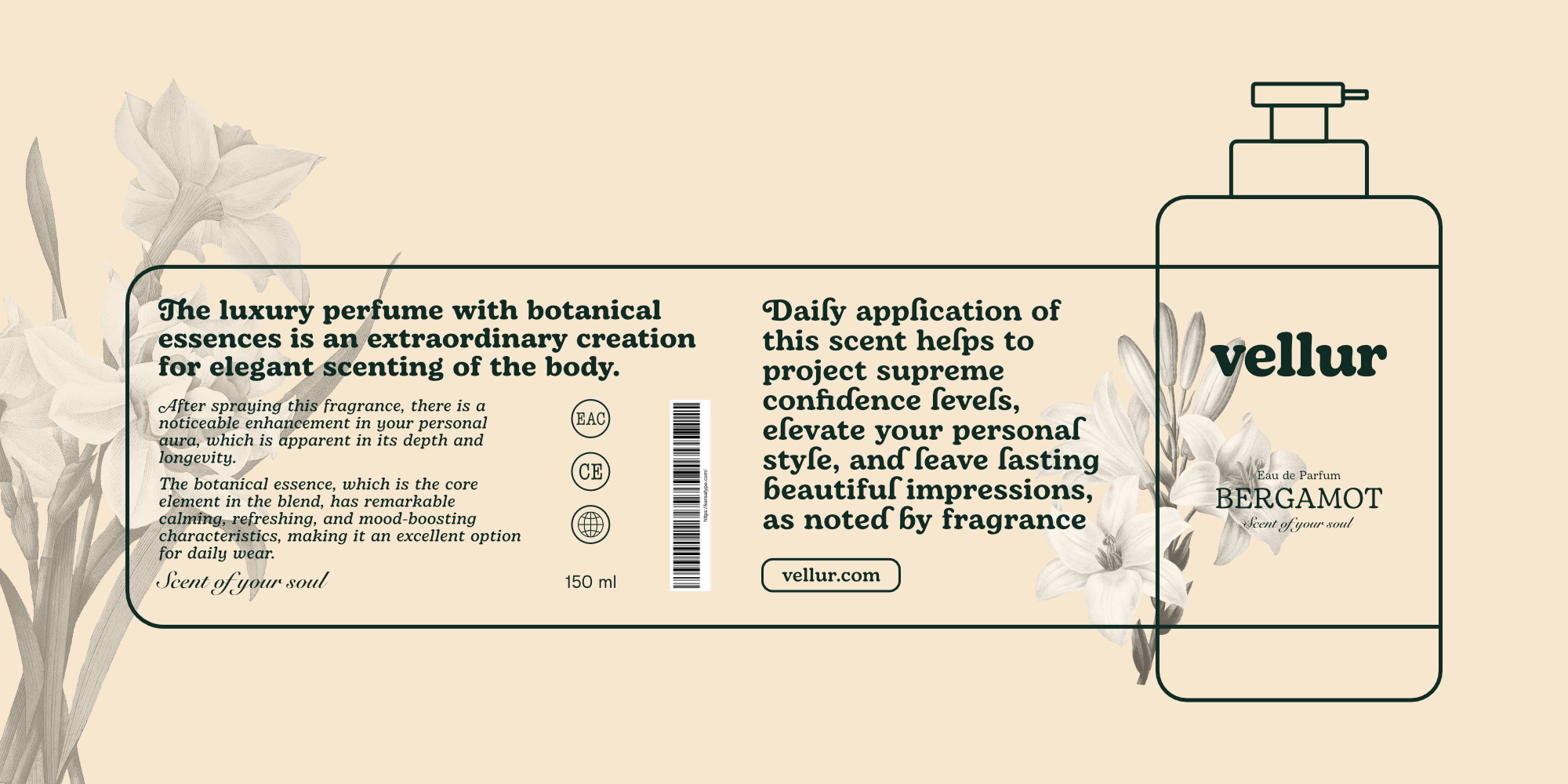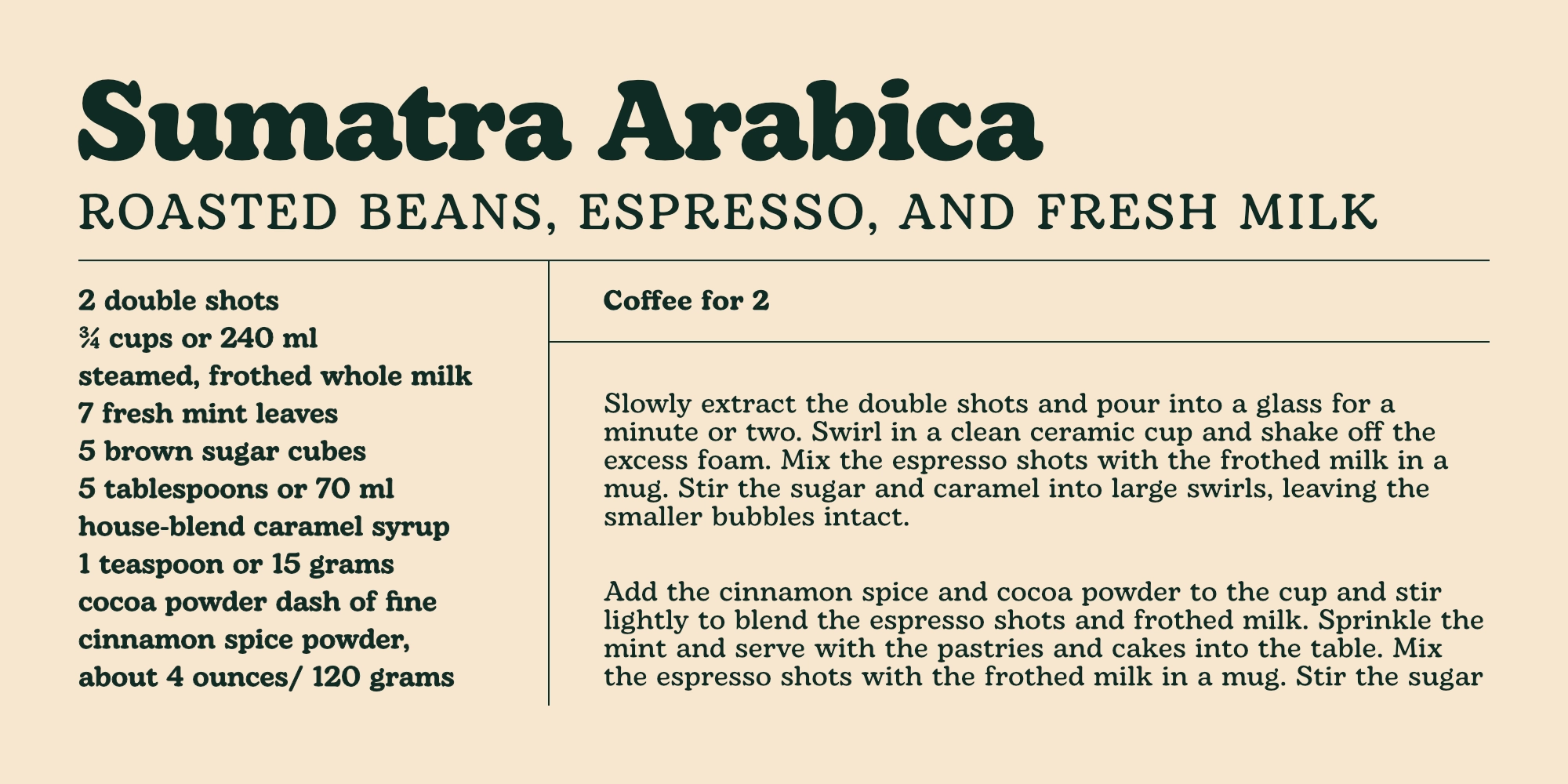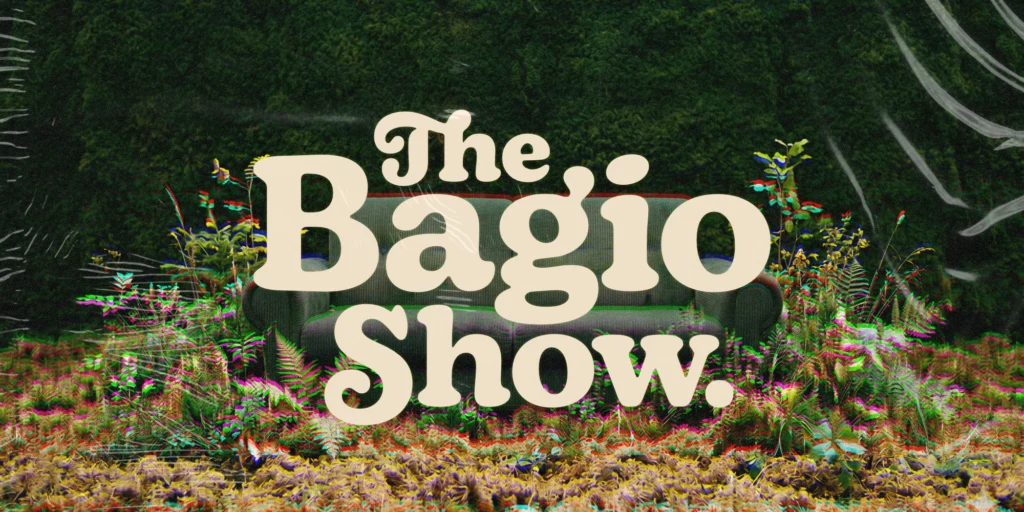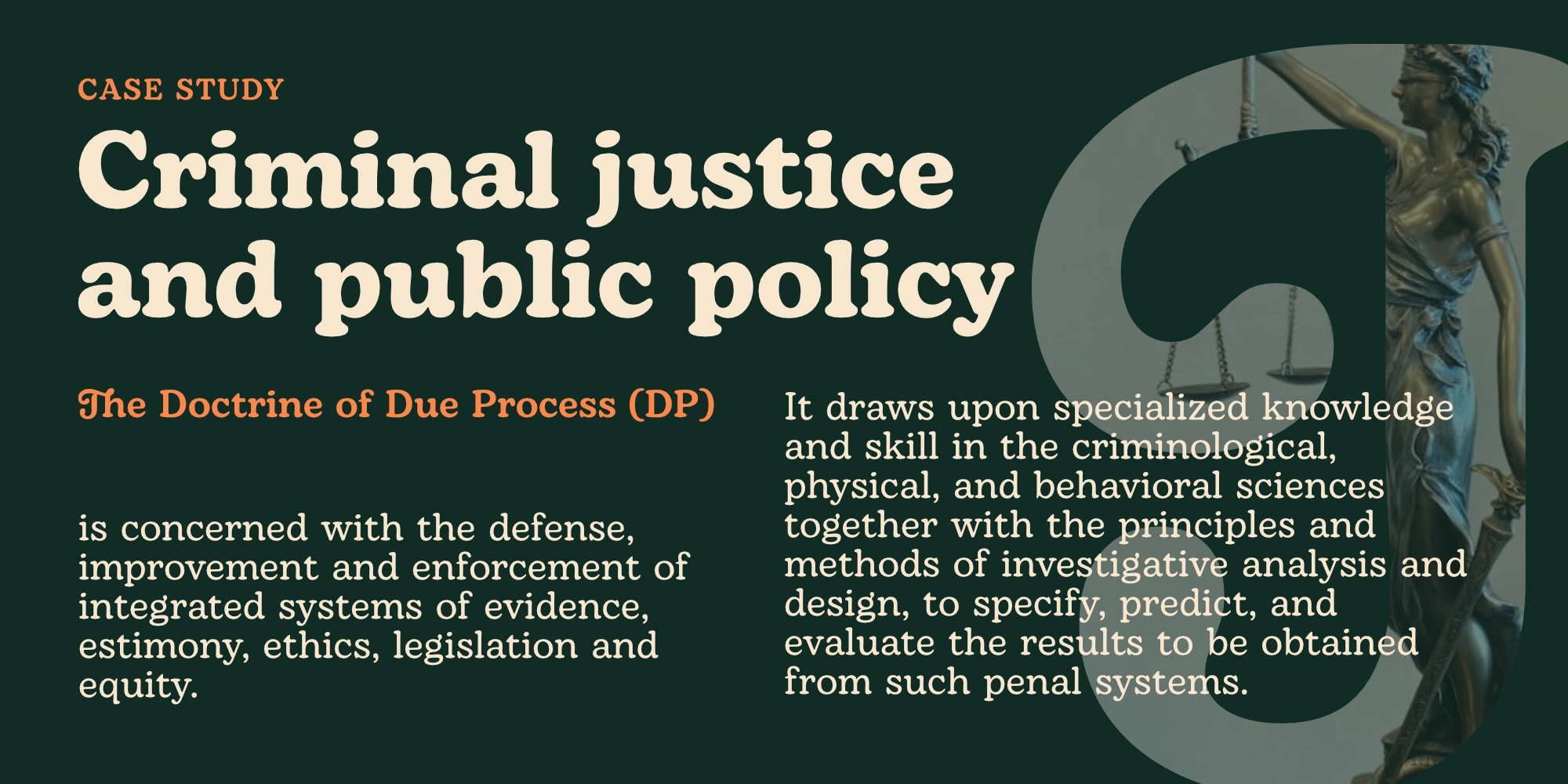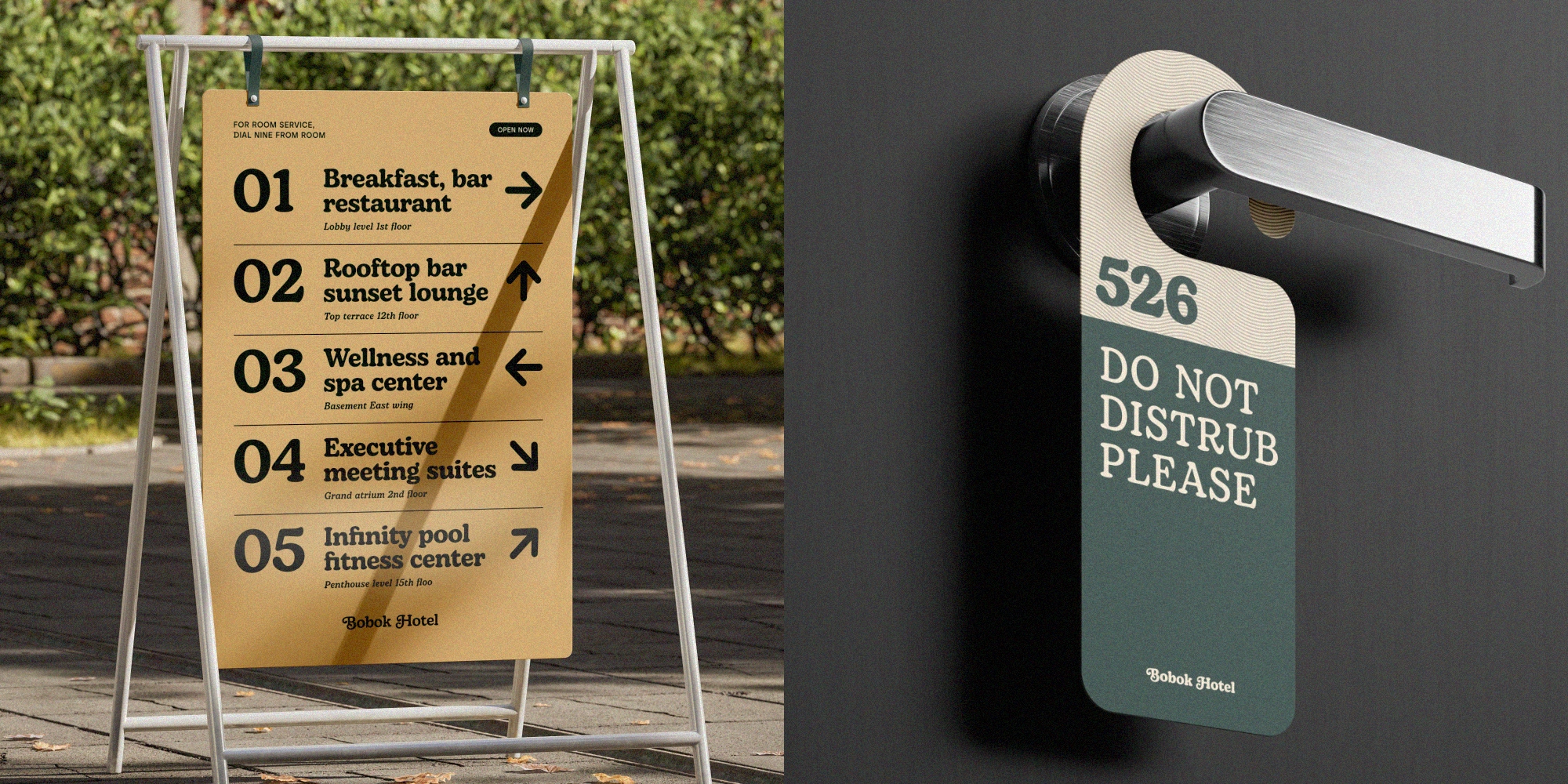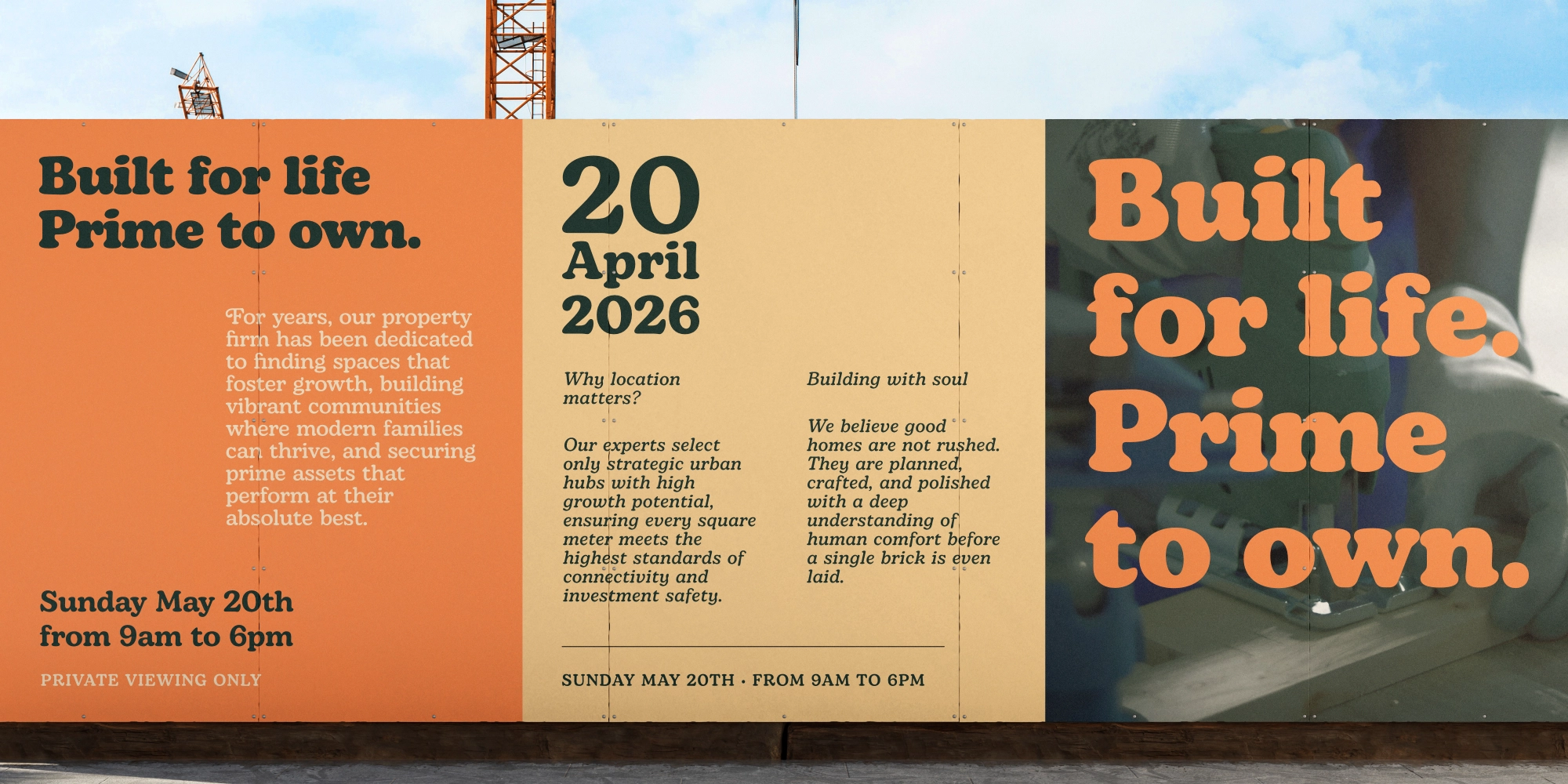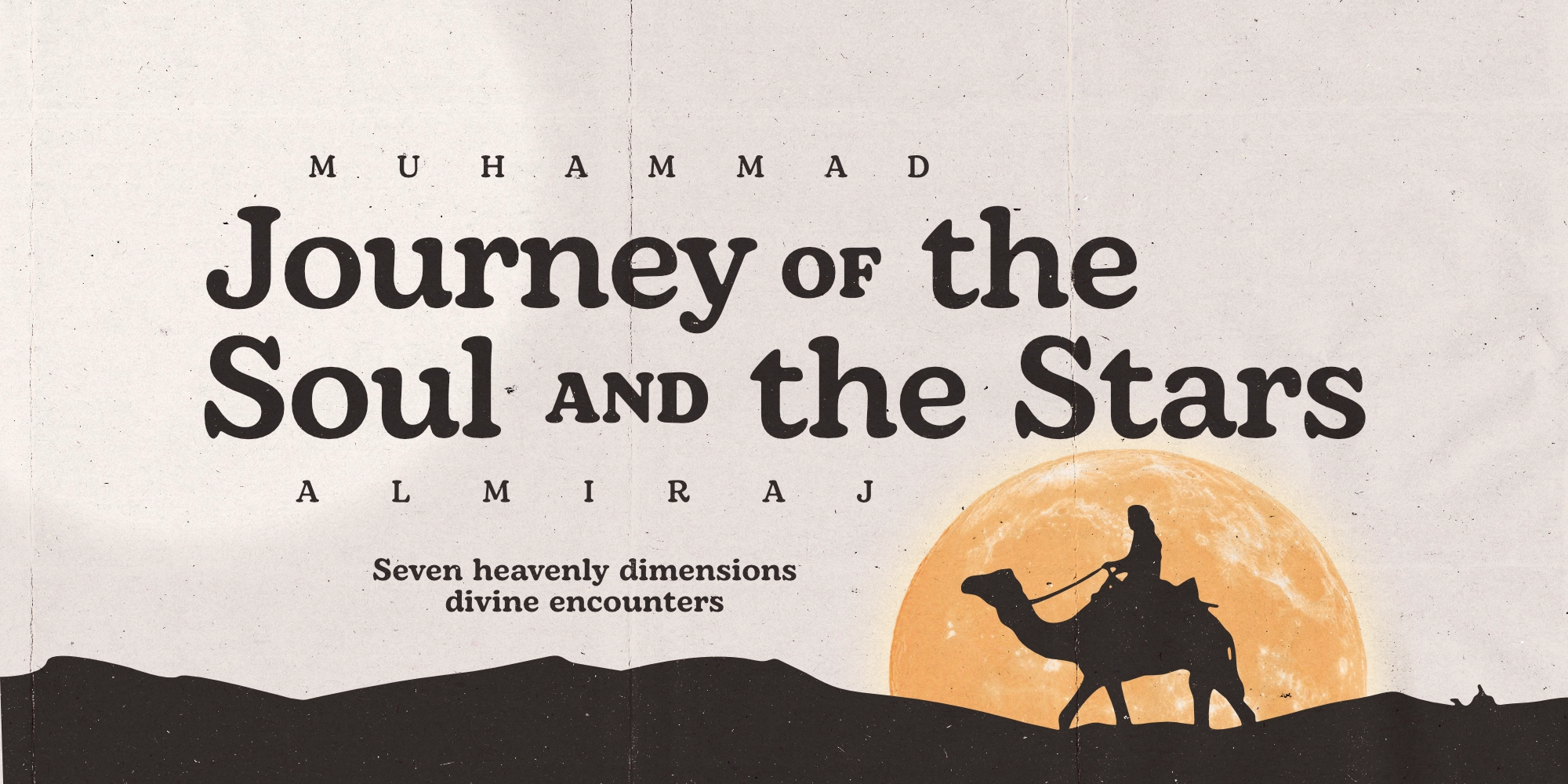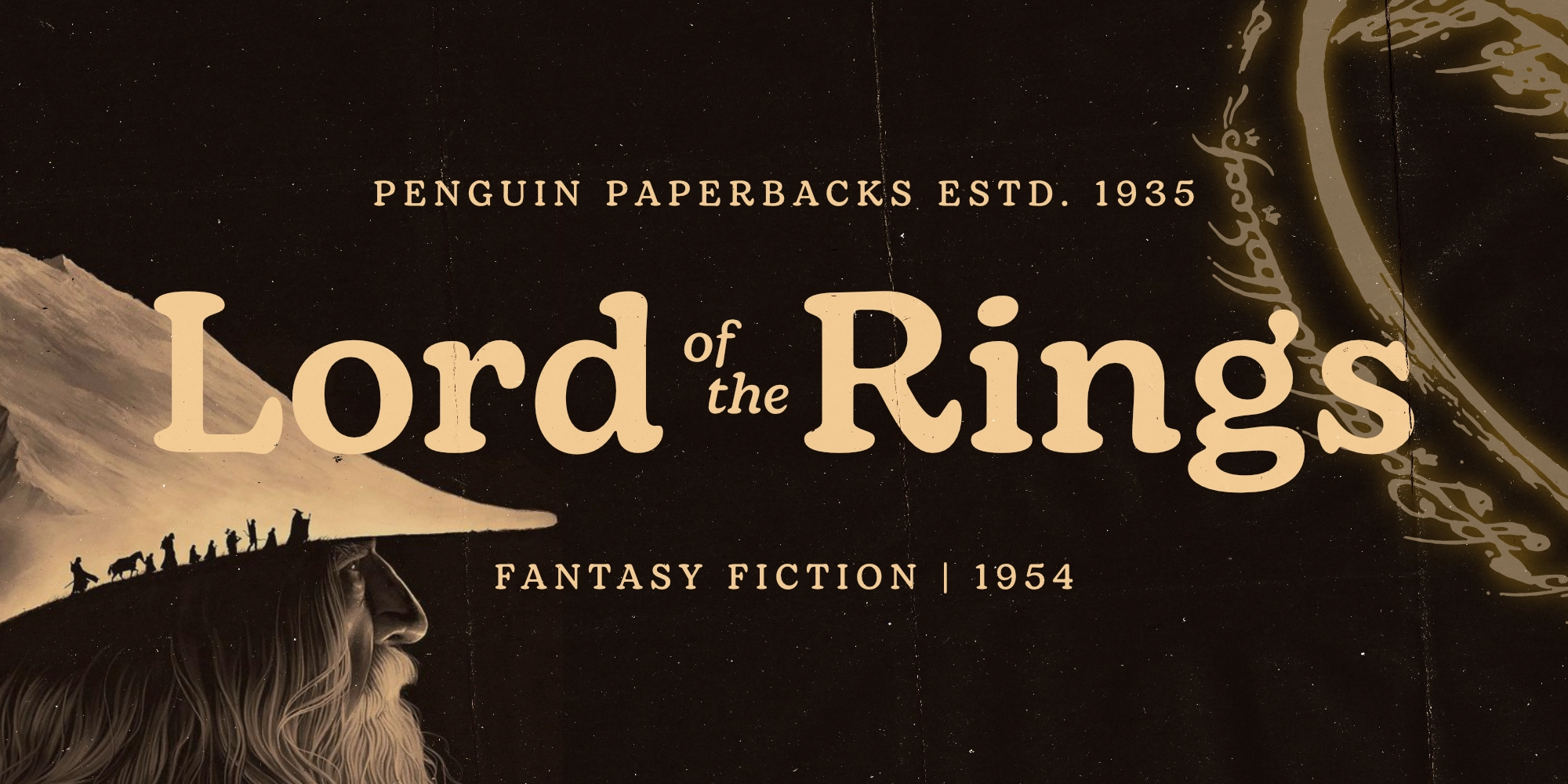
Bagio
Inspired by the 70s retro aesthetic and iconic rounded fat faces, it masterfully merges vintage warmth with modern elegance.
A typography educational graphic displaying the features of the Bagio soft serif font, using the word "Royal" to highlight anatomy details like ascender, x-height, baseline, moderate contrast, soft corners, and droplets at terminals.
A luxury perfume packaging label design for a brand named Vellur, utilizing the Bagio font for the product description and branding, decorated with botanical lily illustrations on a soft beige background.
Soft retro serif font
Friendly Retro Charm Meets Modern Elegance Bagio is a fun and approachable soft serif typeface that masterfully blends traditional elegance with a fresh, modern sensibility. Inspired by the iconic pop culture typography of the 1960s and 1970s—echoing classic low-contrast fat faces like Cooper Black—Bagio features unique rounded serifs and fluid, soft curves. It brings a familiar, nostalgic warmth while standing out with unconventional letterforms tailored for contemporary design.
14 Versatile Styles for Every Project Designed for ultimate flexibility, the Bagio font family comes with 7 weights ranging from a delicate Thin to a commanding Black, complete with matching italics. This versatile weight range and strong, readable structure make it perfect for both striking, playful logotypes and extended body text. Whether you are working on joyful food packaging, sophisticated botanical branding, or clean modern web design, Bagio adapts beautifully.
Advanced Features & Global Reach Unleash your creativity with Bagio’s advanced OpenType features, including a generous set of stylistic alternates that give your typography a custom-tailored look. With comprehensive multilingual support for over 100 languages, Bagio is the ultimate go-to typeface for designers seeking a timeless, friendly, and high-quality soft serif font.
A cafe recipe card for Sumatra Arabica coffee using the Bagio font, detailing the ingredients like roasted beans, espresso, and fresh milk, along with brewing instructions on a light beige background.
A typography layout for a cafe article using the Bagio soft retro serif font, featuring the bold heading "Espresso & Robusta" in dark green against a beige background with supporting text about coffee brewing.